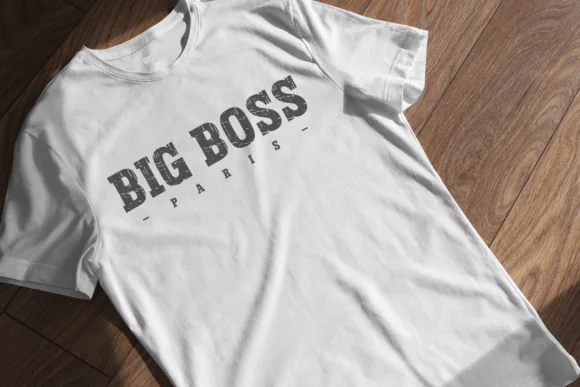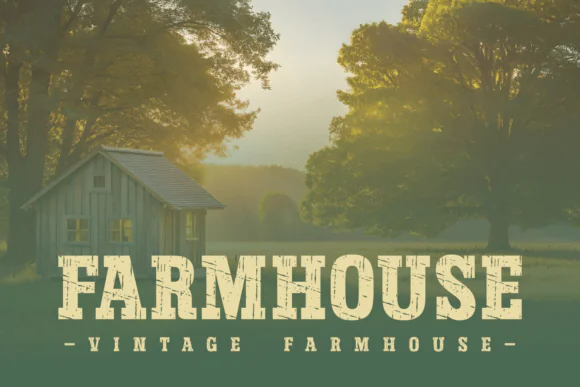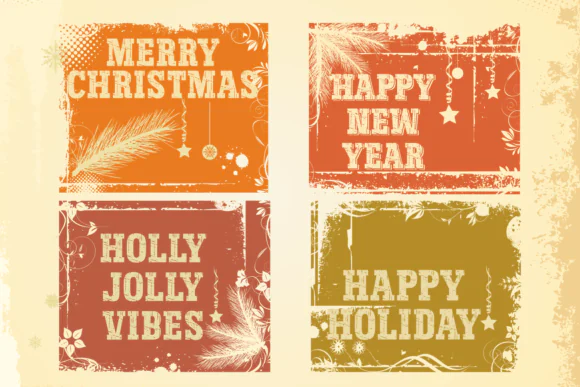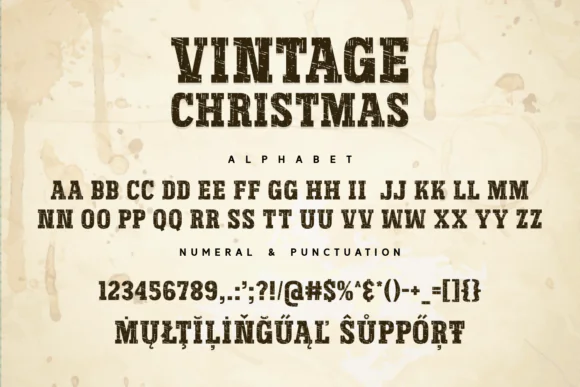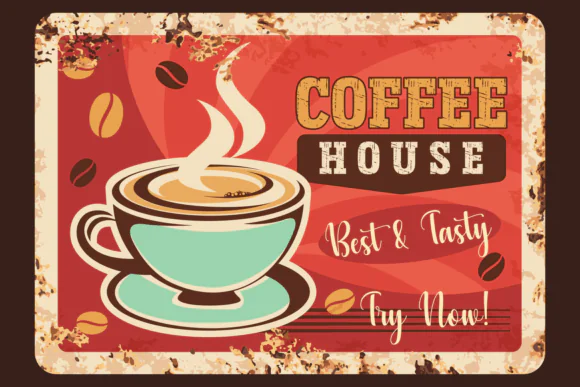
Vintage Christmas Font | Nostalgic Textured Holiday Font for Festive Invitations, Greeting Cards, Retro Typography, Crafts & Classic Christmas Designs
Bring timeless holiday elegance to your creative projects with Vintage Christmas Font, a nostalgic textured font inspired by the warmth and charm of classic Christmas seasons.
This font is perfect for designs that need a traditional, retro, and festive look. With its subtle texture and vintage personality, it works beautifully for Christmas invitations, holiday greeting cards, festive posters, product labels, packaging, wall art, social media graphics, apparel designs, mugs, stickers, scrapbooking, and seasonal branding.
Vintage Christmas Font adds a warm old-fashioned feel to your typography, making it ideal for projects that need classic holiday beauty rather than a modern minimal style. It is a great choice for designers, crafters, small business owners, and digital creators who want to create festive designs with a nostalgic and premium touch.
• Christmas greeting cards
• Holiday invitations
• Vintage posters and banners
• Festive product packaging
• T-shirt and sweatshirt designs
• Mug and sticker designs
• Retro Christmas wall art
• Social media holiday graphics
• Scrapbooking and DIY crafts
• Seasonal branding projects
• Printable decorations
• Classic Christmas typography
• Nostalgic vintage Christmas style
• Beautiful textured font appearance
• Great for traditional holiday designs
• Adds warmth, charm, and elegance
• Perfect for festive invitations and greetings
• Suitable for both print and digital projects
Vintage Christmas Font is a beautiful choice for creating warm, elegant, and memorable holiday designs with the timeless charm of Christmas seasons gone by.